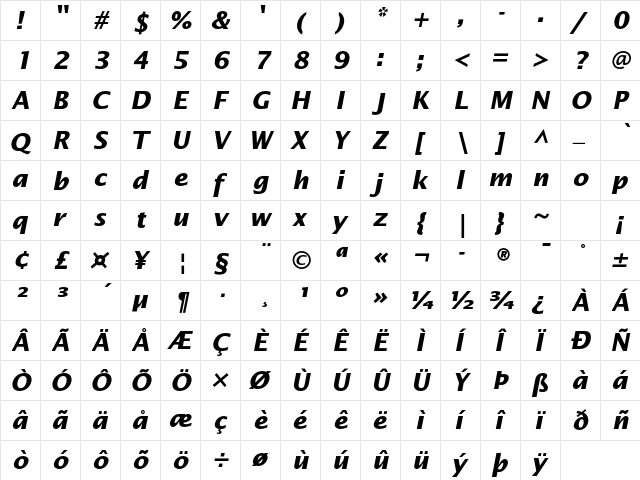
Lucida Sans Std Bold Italic
| Designer | Kris Holmes, Charles Bigelow |
Design Context for Lucida Sans Std Typeface
Lucida Sans Std offers clean, dependable letterforms without strong stylistic allegiance, making it a practical choice for designers who need flexibility. Its italic angle brings a sense of urgency and motion to the letterforms. Its bold stroke weight gives it real presence on the page.
Pro Tip: Use Lucida Sans Std for emphasis, pull quotes, and subheadings where its slanted energy can add rhythm to the layout.